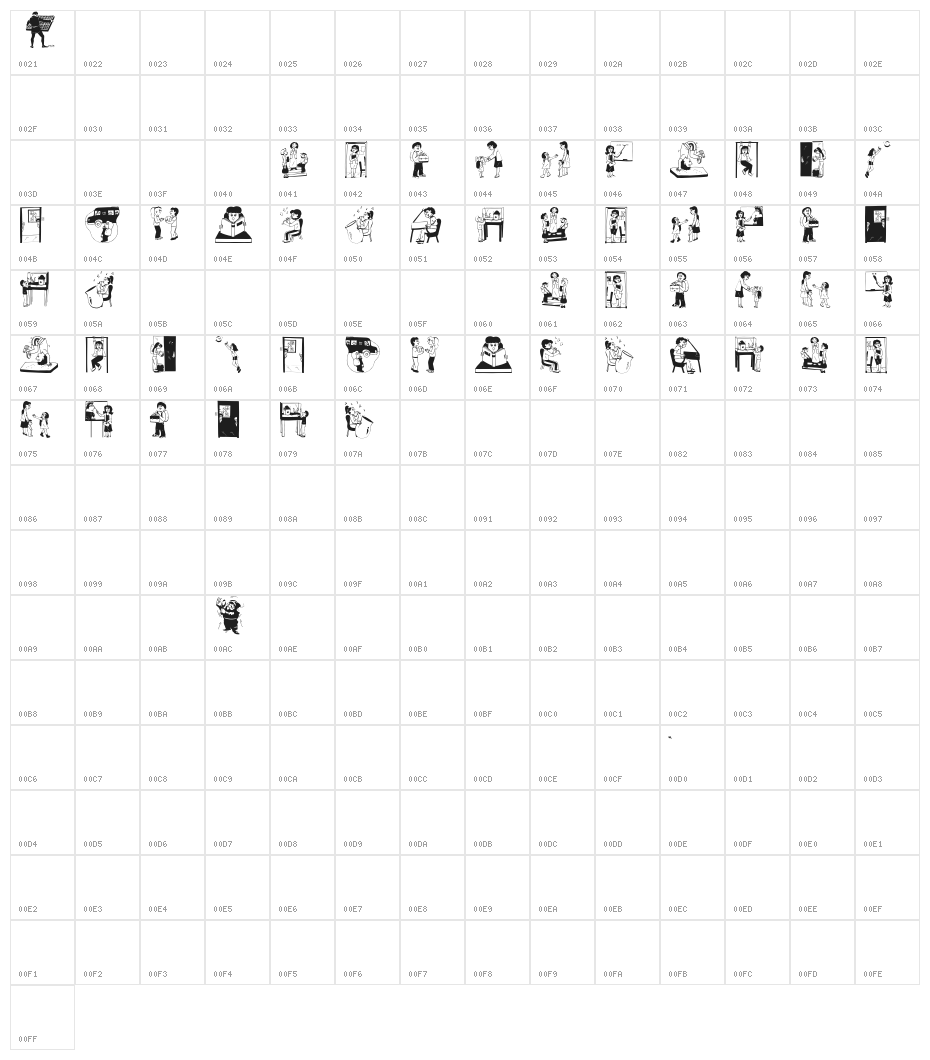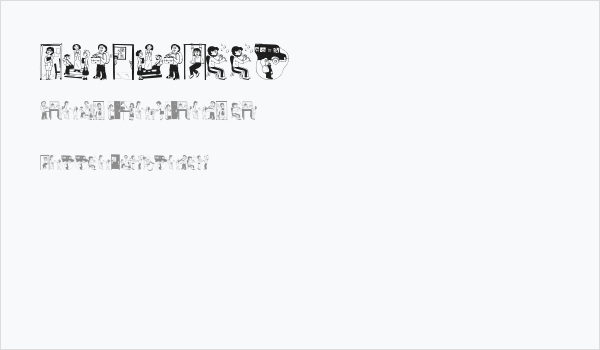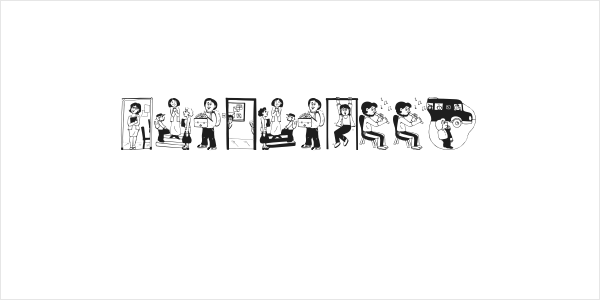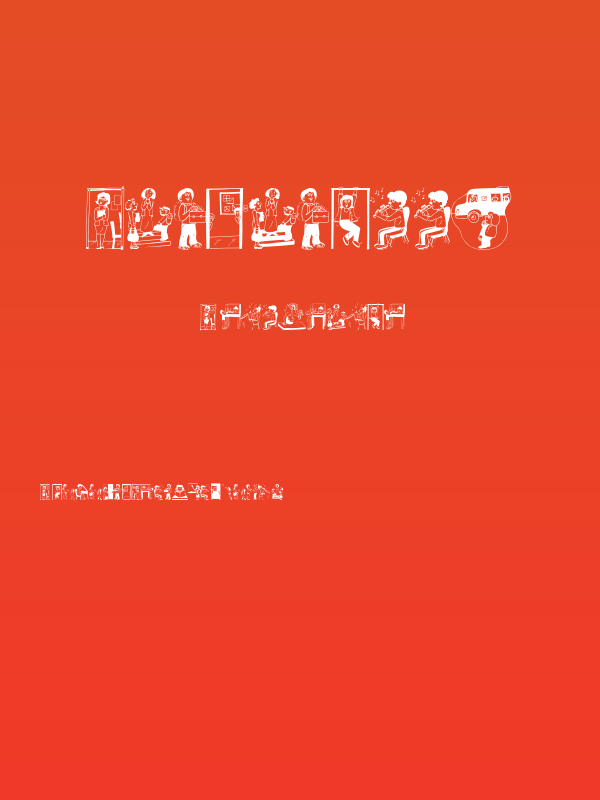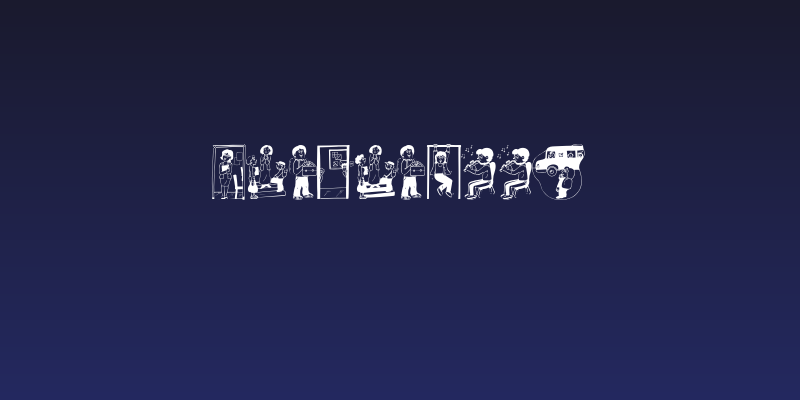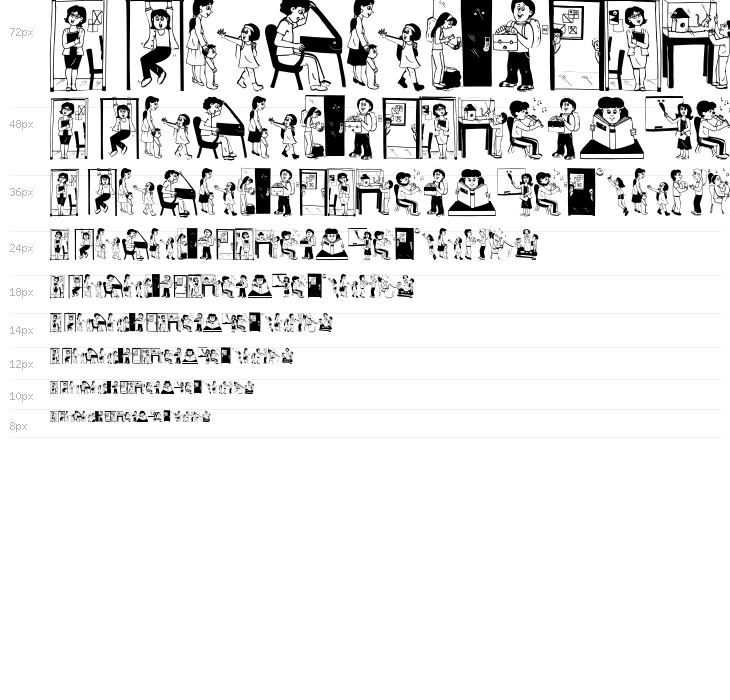
Back2School Font
| Overall Style | Playful, Illustrative, Whimsical |
| Use Case | Headlines, Posters, Educational materials, Themed graphics |
| Proposed Projects | Children's books, educational posters, school event invitations, playful branding, classroom decor. |